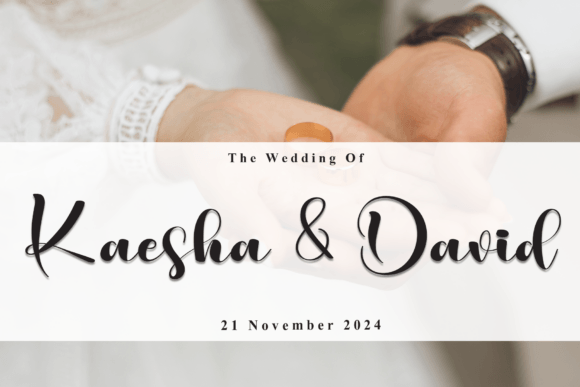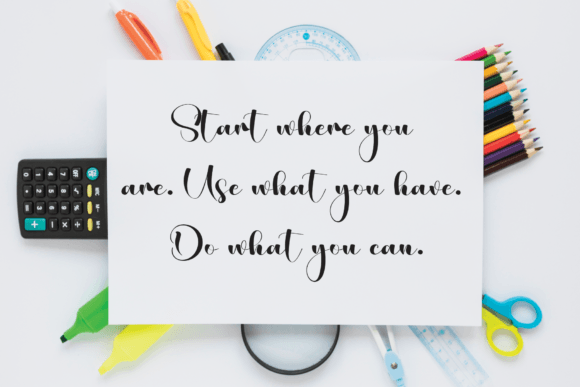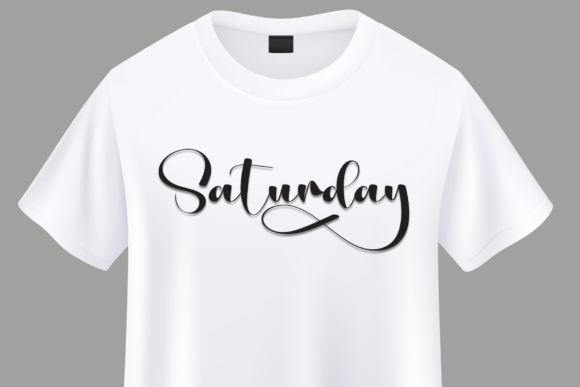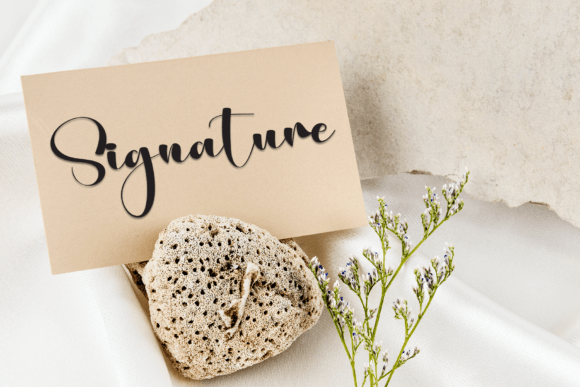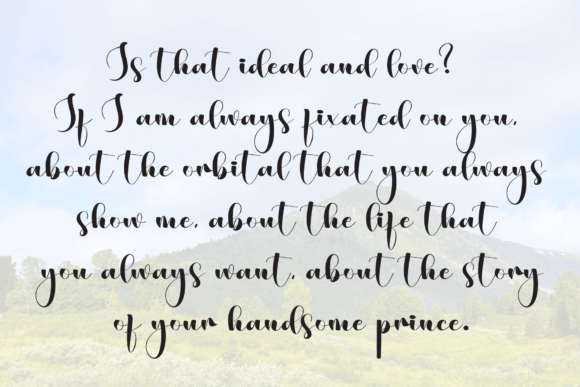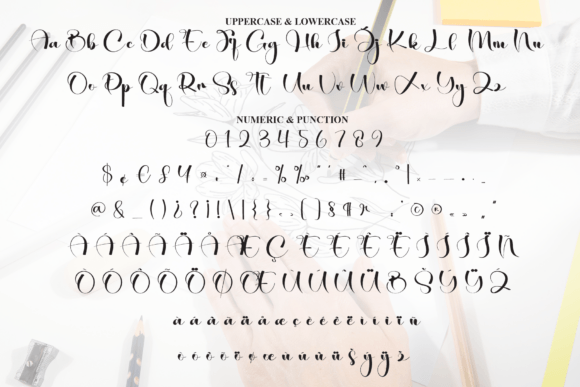
Introducing Drawing Font: The Perfect Handwritten Script for Your Designs
Are you looking for a font that can add a personal and creative touch to your designs? Look no further than Drawing Font, a beautiful handwritten script font with a natural and elegant style. In this article, we’ll explore the features and benefits of Drawing Font, and how it can elevate your designs to the next level.
What is Drawing Font?
Drawing Font is a carefully crafted handwritten script font that mimics the look of real handwriting. With its natural and elegant style, it’s perfect for adding a personal touch to your designs. Whether you’re a designer, crafty DIY enthusiast, or simply someone who loves to create, Drawing Font is the perfect choice for anyone looking to add a unique and creative element to their work.
Key Features of Drawing Font
- Natural and Elegant Style: Drawing Font has a beautiful, flowing script style that’s reminiscent of real handwriting.
- Perfect for Handwritten Designs: With its natural and elegant style, Drawing Font is perfect for creating handwritten designs that look like they were written with a pen or pencil.
- Highly Versatile: Drawing Font can be used for a wide range of design projects, from invitations and greeting cards to posters and social media graphics.
- Easy to Read: Despite its handwritten style, Drawing Font is highly legible and easy to read, making it perfect for designs that require a personal touch.
Benefits of Using Drawing Font
So why choose Drawing Font for your designs? Here are just a few benefits of using this beautiful handwritten script font:
- Adds a Personal Touch: With its natural and elegant style, Drawing Font adds a personal touch to your designs that’s hard to replicate with other fonts.
- Creates a Unique Look: Drawing Font’s handwritten style creates a unique look that’s perfect for designers who want to stand out from the crowd.
- Perfect for Creative Projects: Whether you’re working on a creative project or simply want to add a personal touch to your designs, Drawing Font is the perfect choice.
- Easy to Use: Drawing Font is highly versatile and easy to use, making it perfect for designers of all skill levels.
How to Use Drawing Font in Your Designs
So how can you use Drawing Font in your designs? Here are a few ideas to get you started:
- Invitations and Greeting Cards: Use Drawing Font to create beautiful, handwritten invitations and greeting cards that are sure to impress.
- Posters and Social Media Graphics: Add a personal touch to your posters and social media graphics with Drawing Font’s elegant and natural style.
- Logos and Branding: Use Drawing Font to create a unique and memorable logo or branding element that sets your business apart.
- DIY Projects: Whether you’re working on a DIY project or simply want to add a personal touch to your home decor, Drawing Font is the perfect choice.
Tips and Tricks for Working with Drawing Font
Here are a few tips and tricks for working with Drawing Font:
- Experiment with Different Sizes and Colors: Don’t be afraid to experiment with different sizes and colors to find the perfect look for your design.
- Use it with Other Fonts: Drawing Font pairs perfectly with other fonts, so don’t be afraid to get creative and try out different combinations.
- Add a Personal Touch: Use Drawing Font to add a personal touch to your designs, whether it’s a handwritten note or a custom illustration.
In conclusion, Drawing Font is a beautiful handwritten script font that’s perfect for adding a personal and creative touch to your designs. With its natural and elegant style, it’s highly versatile and easy to use, making it perfect for designers of all skill levels. Whether you’re working on a creative project or simply want to add a unique element to your designs, Drawing Font is the perfect choice. So why wait? Download Drawing Font today and start creating beautiful, handwritten designs that are sure to impress!